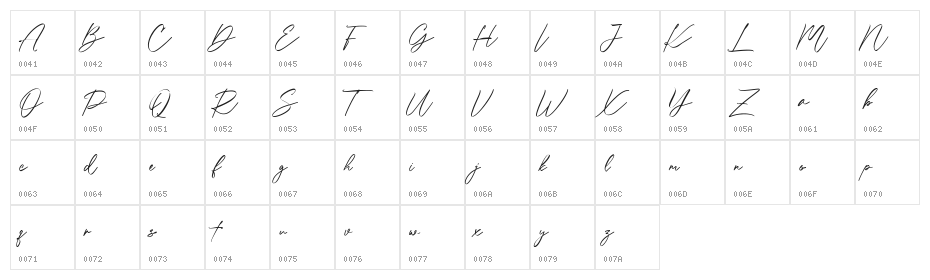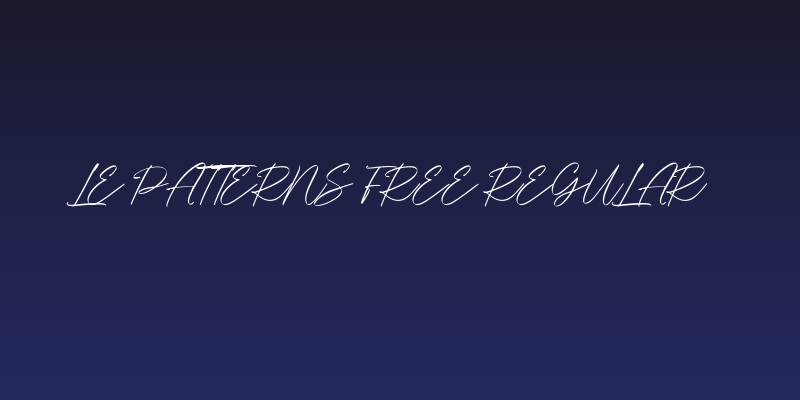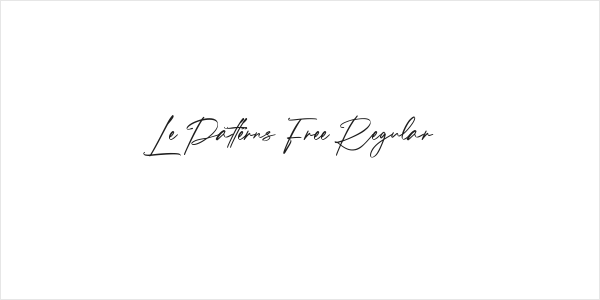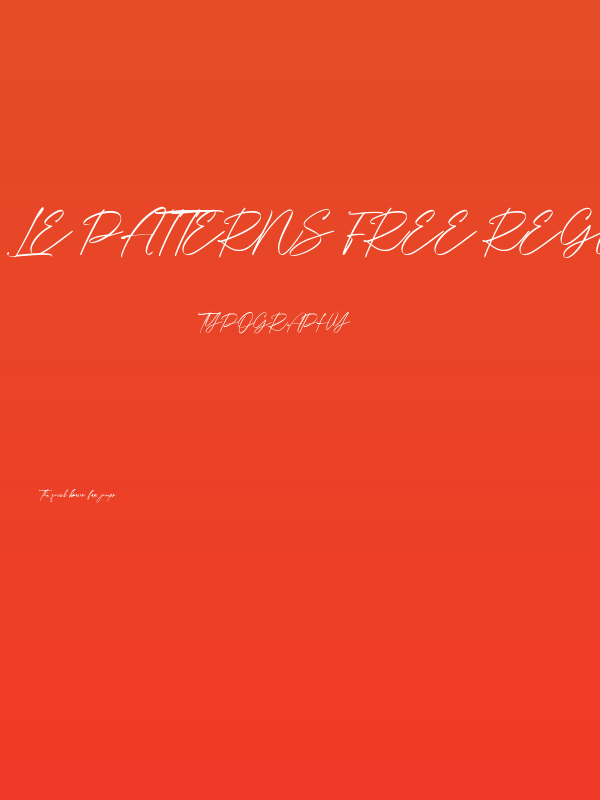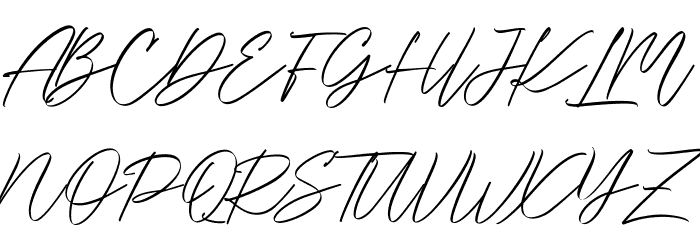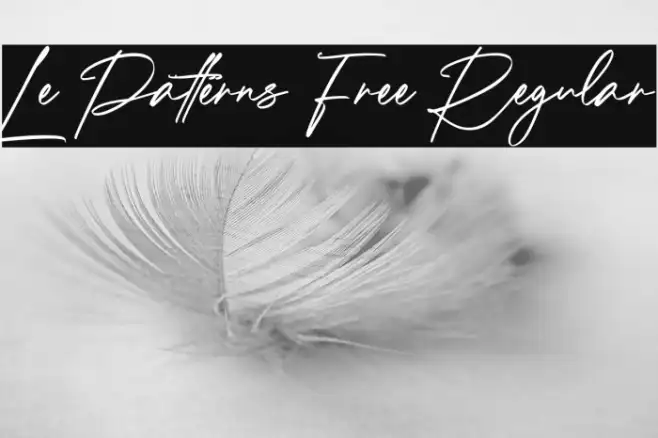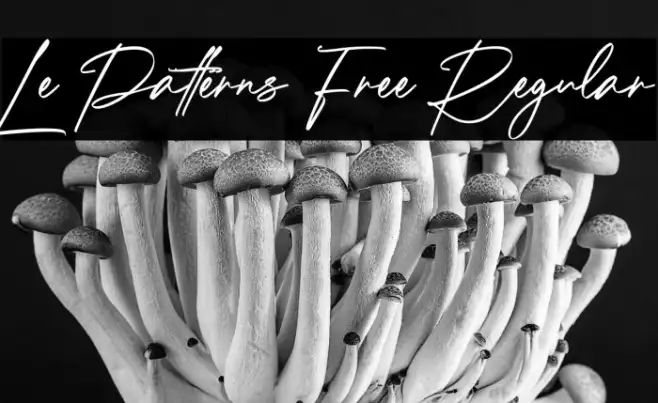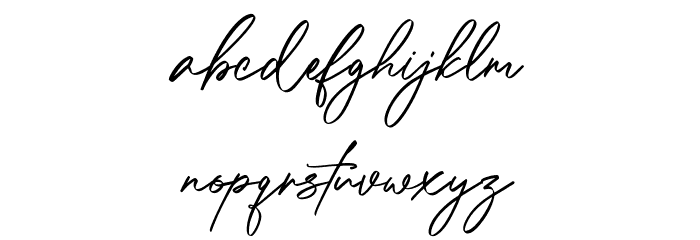
Le Patterns Free Regular Font
Le Patterns Free Regular Description
This font features an elegant, flowing script style that mimics the fluidity of natural handwriting. The characters are connected in a cursive manner, giving it a sophisticated and artistic appearance. The strokes are smooth and consistent, with a slight slant to the right, enhancing its dynamic and graceful look. The uppercase letters are bold and prominent, while the lowercase letters maintain a delicate and refined quality. This font is perfect for adding a personal touch to any design, making it ideal for invitations, greeting cards, and branding projects. Its stylish and modern aesthetic makes it versatile for various creative applications.